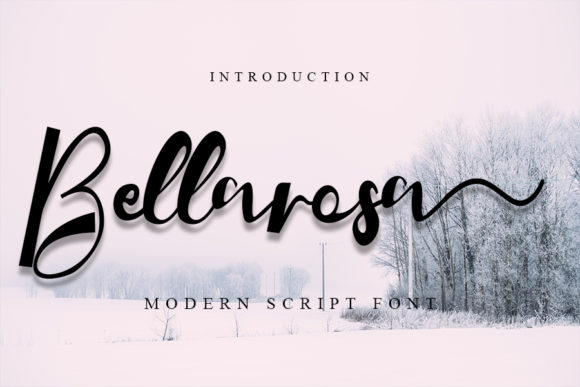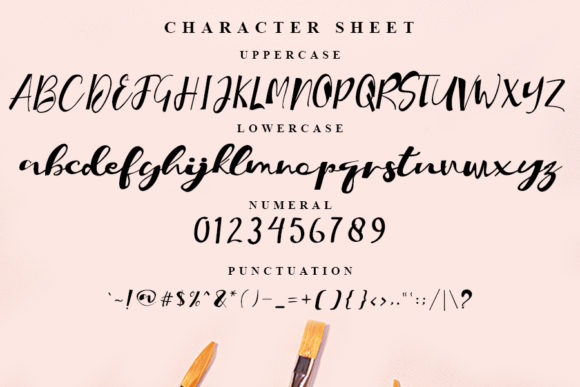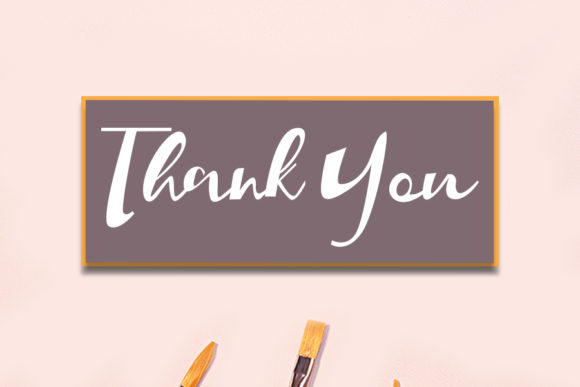
Bellarosa Font
About Bellarosa Font
Bellarosa is a flowing and merry script font that was designed to be the first choice for a romantic valentine’s day design or any festive craft! This font is PUA encoded which means you can access the available glyphs and swashes with ease!